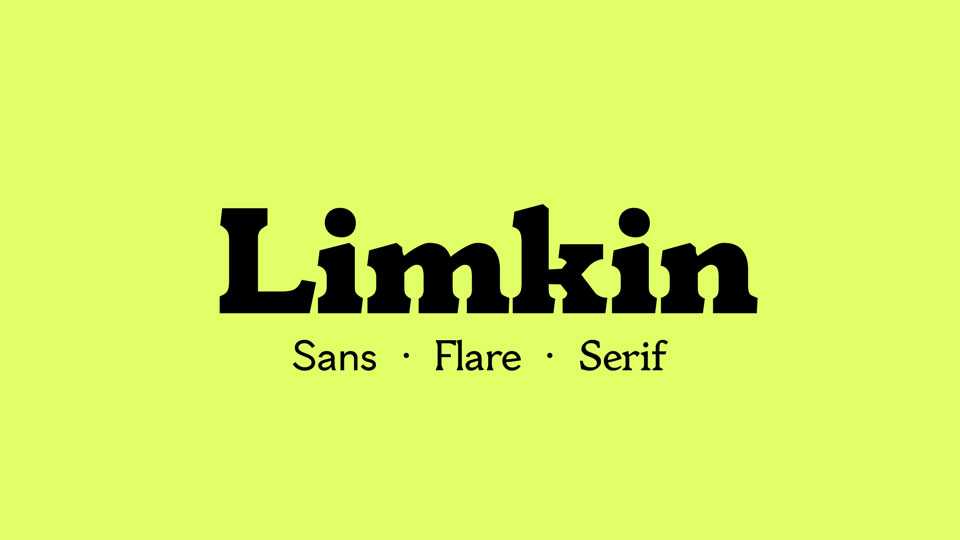
Download TMT Limkin font, a modern and versatile type family that includes Sans, Flare, and Serif typefaces. It offers a comprehensive solution for all your design needs.
Designer: Too Much Type